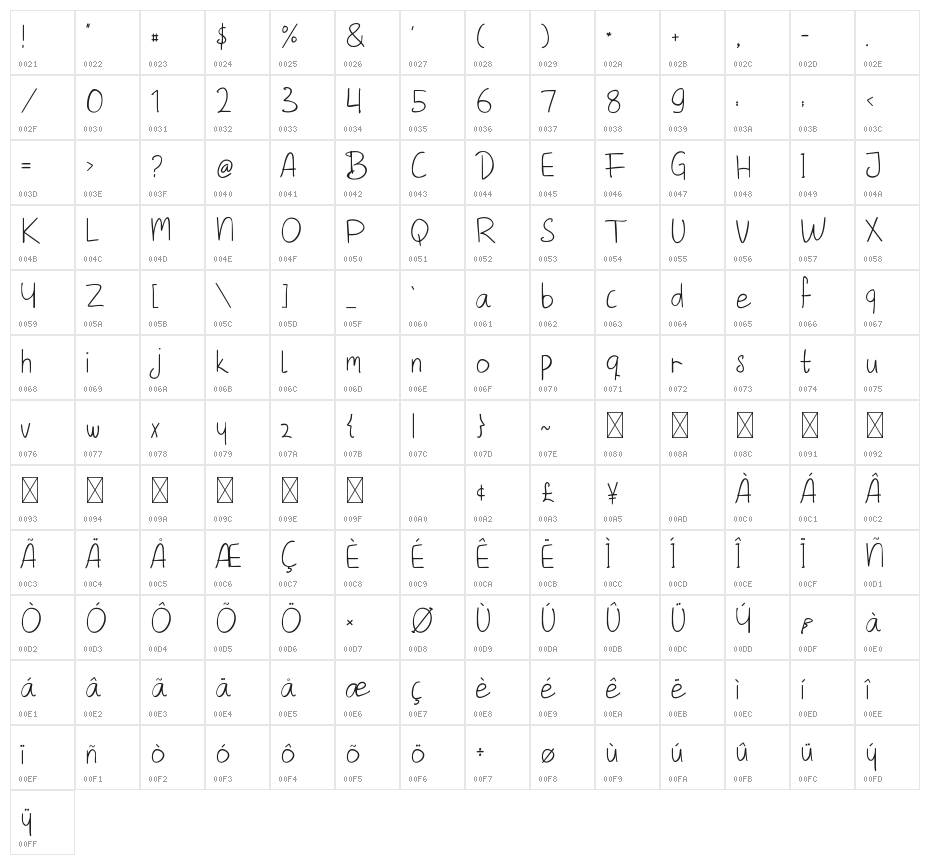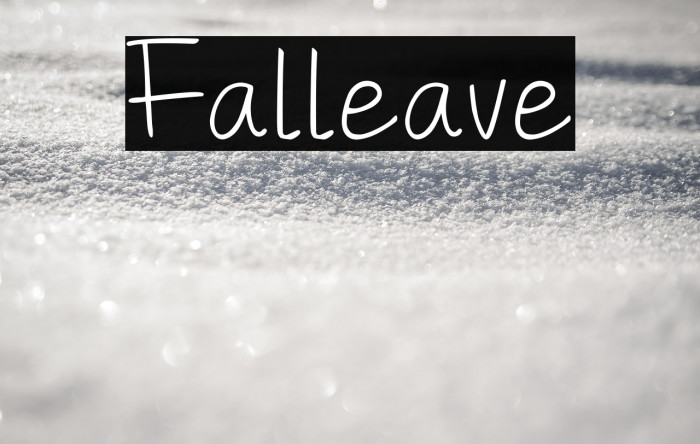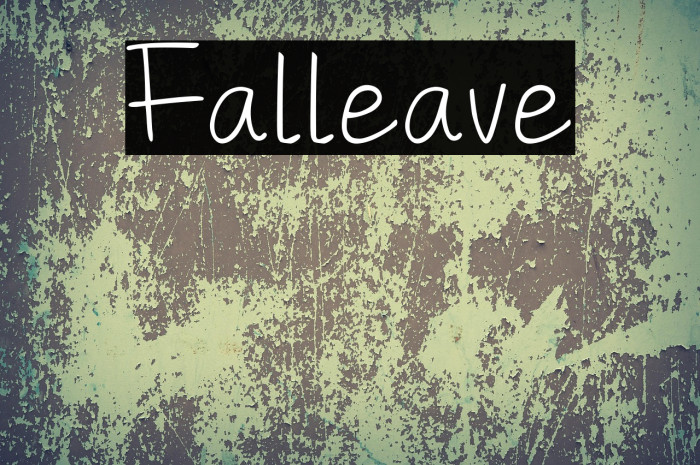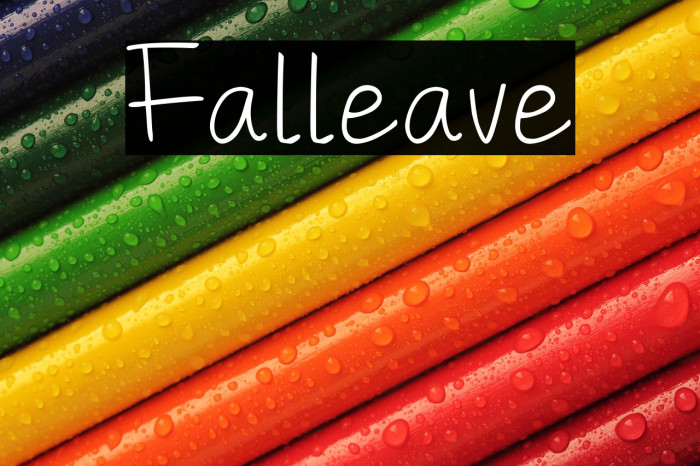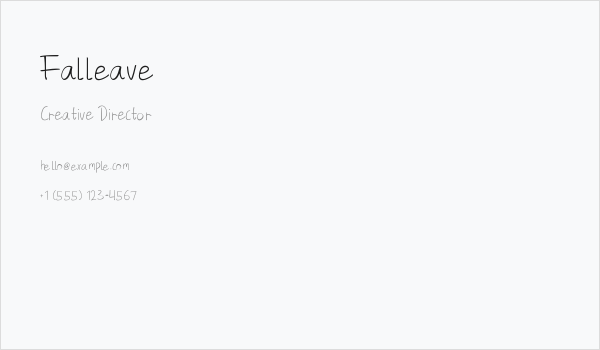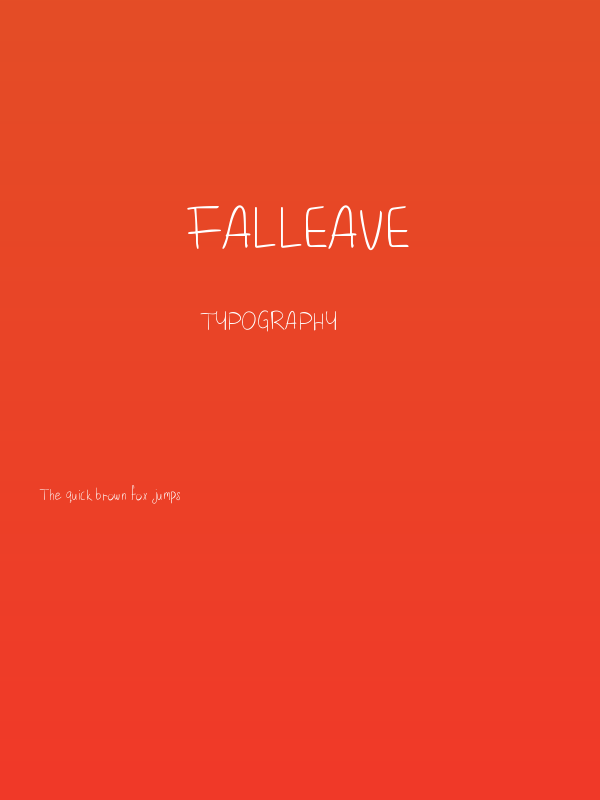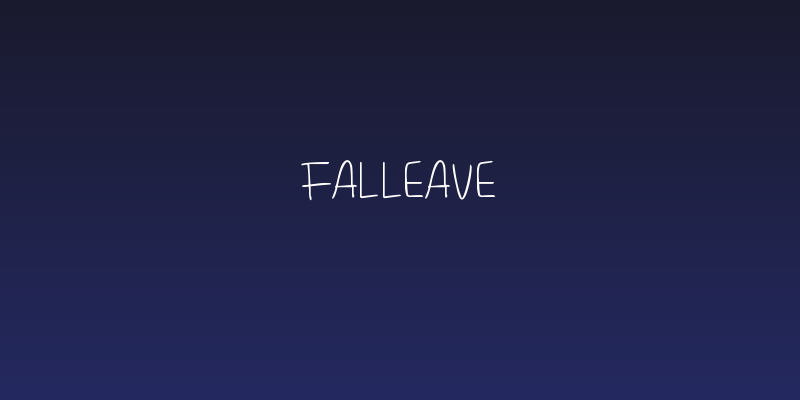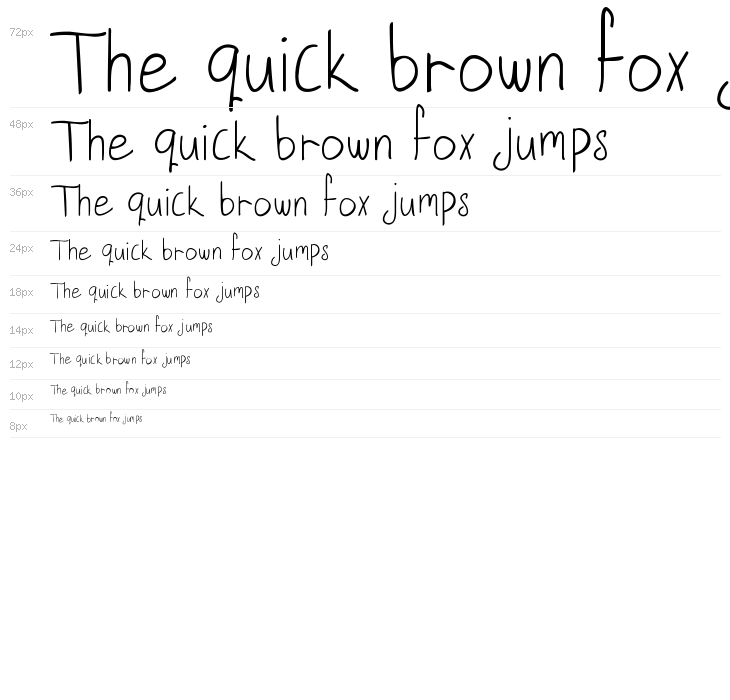
Falleave Font
Falleave Description
A playful, handwritten font with a casual and informal style, featuring irregular strokes and a friendly appearance.
| Overall Style | Casual, Friendly |
| Proposed Projects | Greeting cards, children's books, informal invitations. |